Cooperation with M. Mistrík (zelenaluka.sk). Generous design of chapter pages uses Fazeta Display for headlines and Odesta by O. Jób (www.setuptype.com) for the background initials.
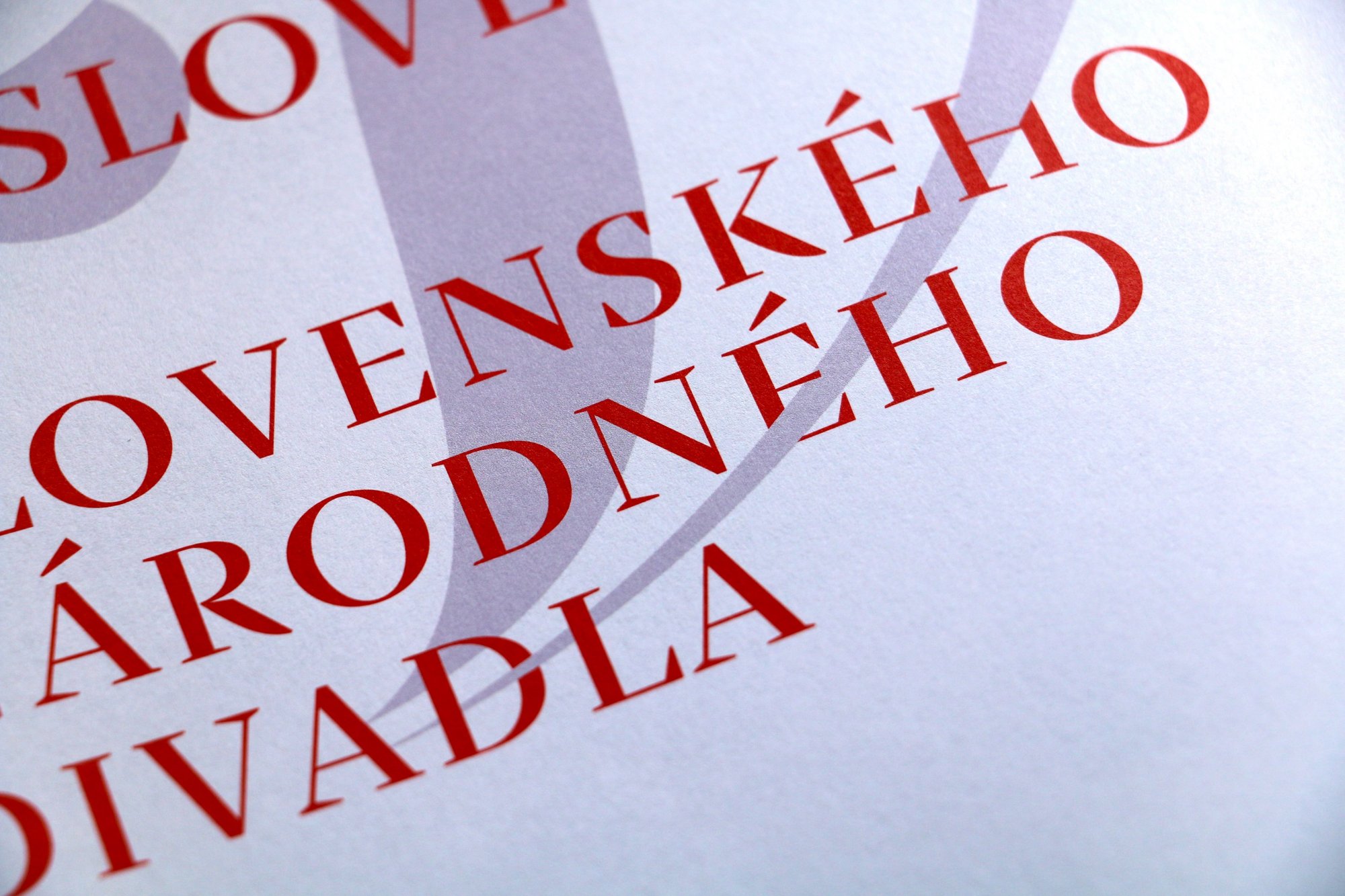
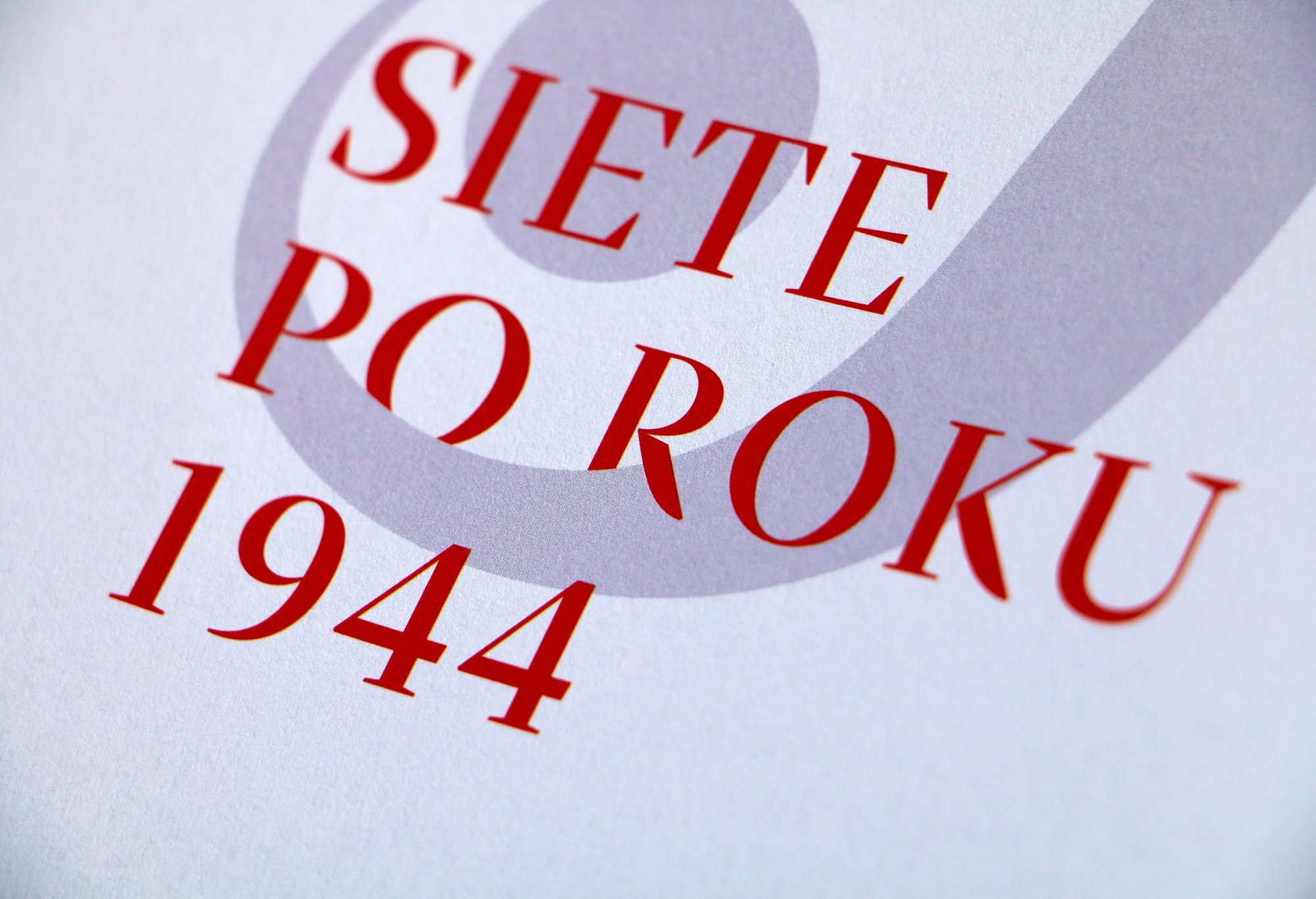
Cooperation with M. Mistrík (zelenaluka.sk). Generous design of chapter pages uses Fazeta Display for headlines and Odesta by O. Jób (www.setuptype.com) for the background initials.